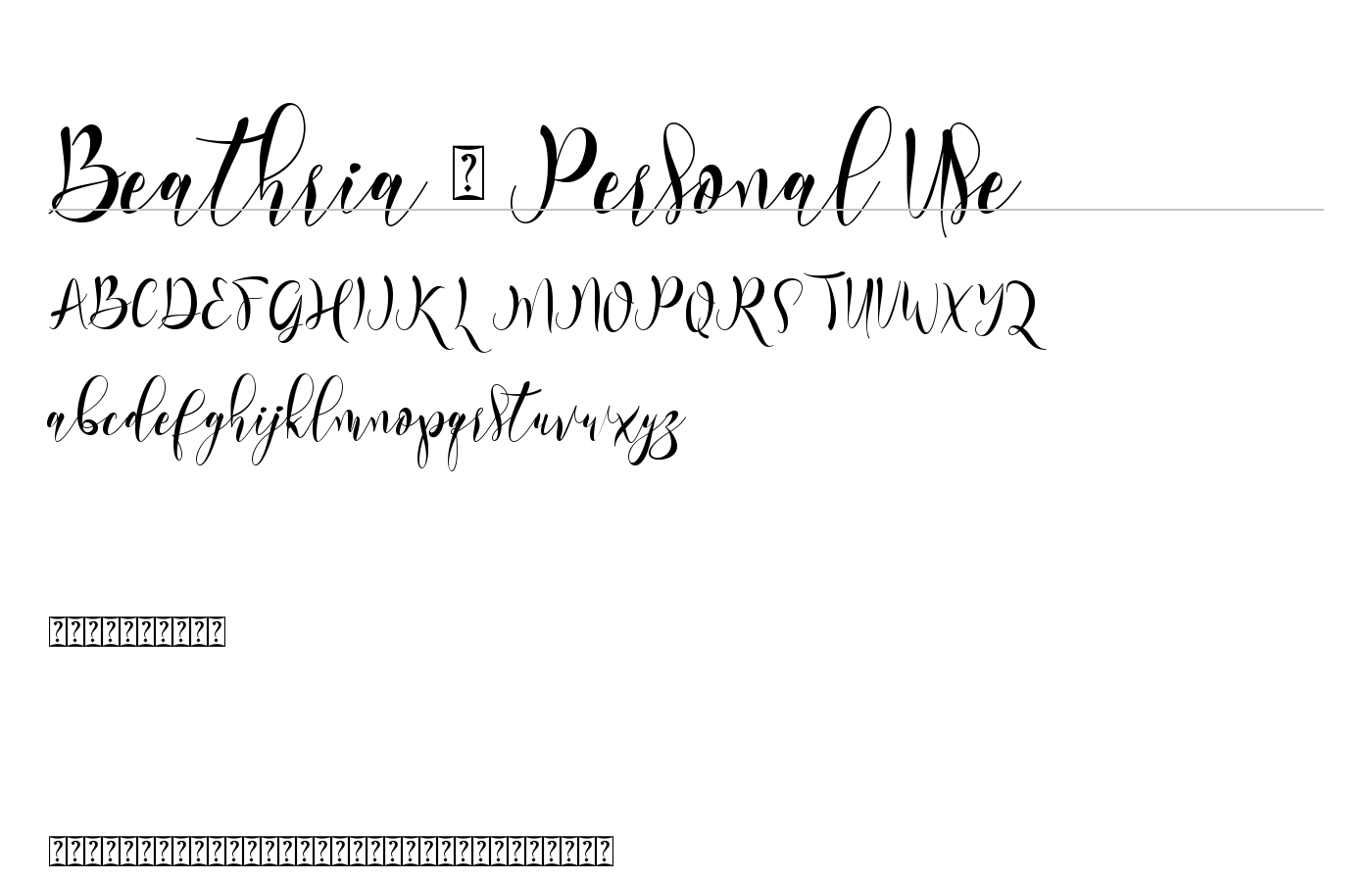
Beathria is an elegant script font with flowing, hand-drawn letterforms that combine delicate thin strokes with smooth, modern curves. It delivers a graceful and artistic feel, perfect for personal branding, wedding invitations, and feminine logos. This font works best in display uses where its stylish and ornamental character can shine.
Beathria Font
About Beathria Font
| Font family | Beathria Font |
| Designer | Yoga Letter 2020 (Isroni Yoga Prasetya) |